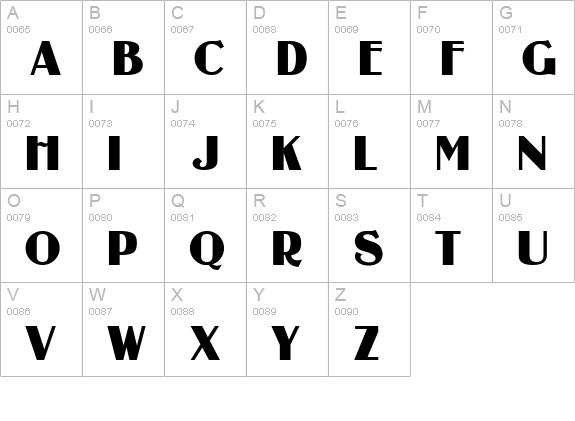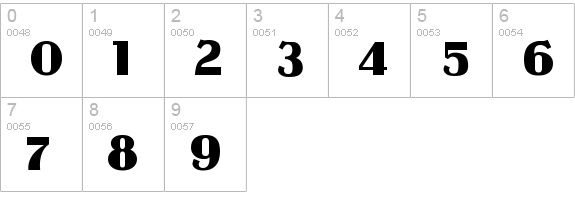
Guanine Font Details
Guanine font is a modern and stylish typeface that exudes elegance and sophistication. With its clean lines and contemporary design, Guanine is perfect for a wide range of projects, from branding to editorial design. The font features a unique combination of classic and modern elements, making it versatile and eye-catching. What sets Guanine font apart is not just its aesthetic appeal, but also the fact that it is completely free to download. Yes, that's right - you can get your hands on this stunning font at absolutely no cost on FontsMarket.com. Whether you're a designer looking to add a fresh touch to your creations or a business owner searching for a distinctive font for your brand, Guanine font is the perfect choice. Don't miss out on this fantastic opportunity to elevate your designs with this exceptional typeface. Download Guanine font today and let your creativity soar!